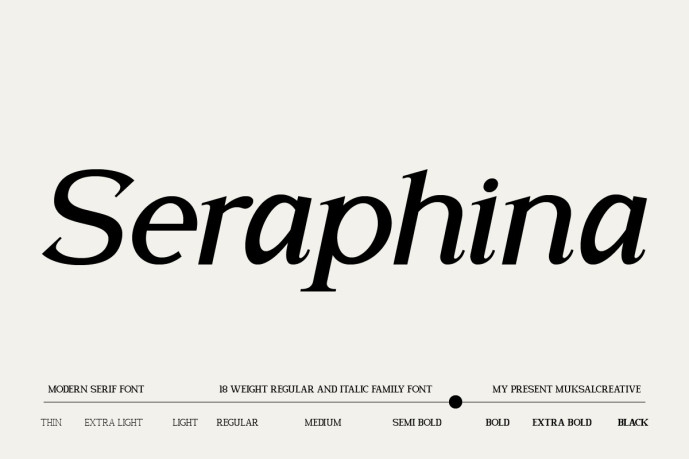
Seraphina Font Family
Seraphina Font Family is a luxurious and versatile variable serif typeface family spanning 18 sophisticated styles—from ultra-thin elegance to powerful black weights, each with italic variants. With its high contrast, graceful serifs and refined character design, Seraphina is built to elevate visual identity projects such as fashion branding, premium packaging, editorial headlines and logo systems. Featuring uppercase & lowercase letters, numerals, punctuation, accented characters and extended language support, this family gives you full typographic freedom to create striking and consistent designs across print and digital media.